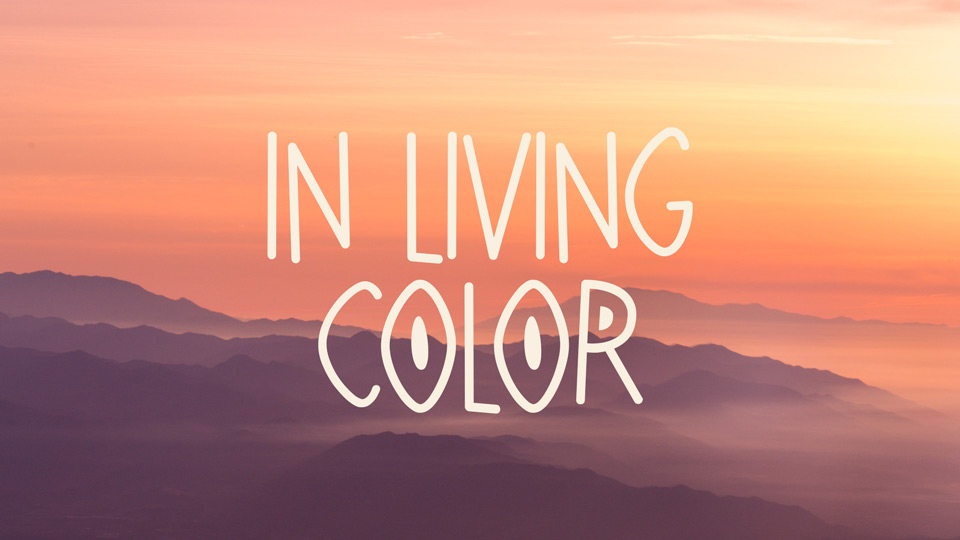
Download In Living Color font, a handwritten typeface, just a recreation of the credits font from In Living Color’s seasons 3 and 4. Its simple and decorative style makes the font perfect to use for quotes, notes, badges, labels, packaging design or social media.